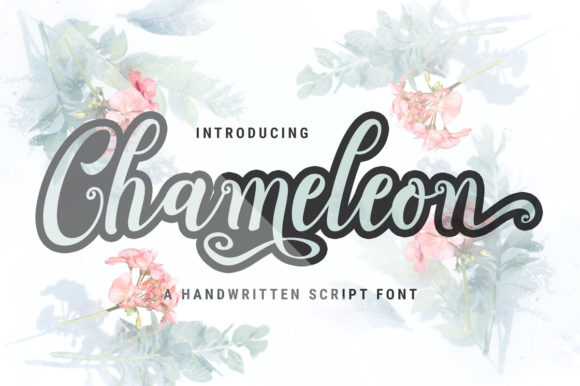
Chameleon Script Font
About Chameleon Script Font
Chameleon Script is a beautiful and sophisticated handwritten font with a unique feel and a stunning impact. It will add a luxury spark to any design project that you wish to create! This font is PUA encoded which means you can access all of the amazing glyphs and ligatures with ease!